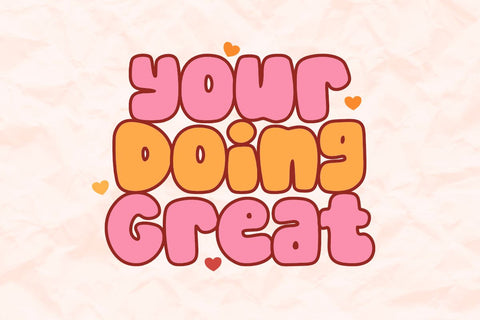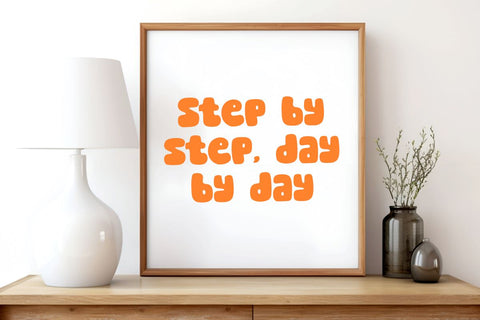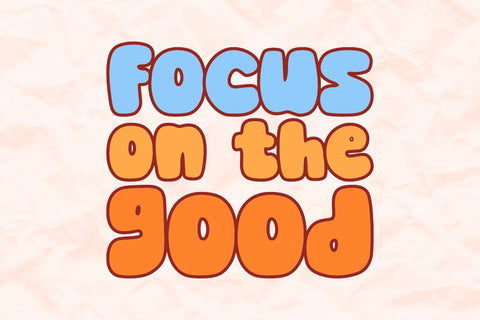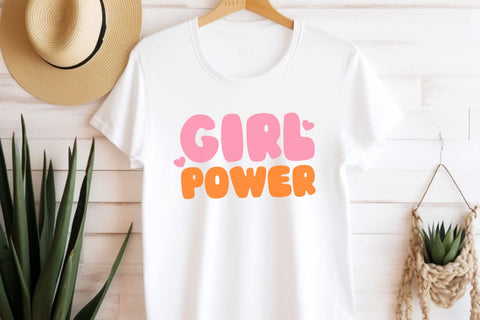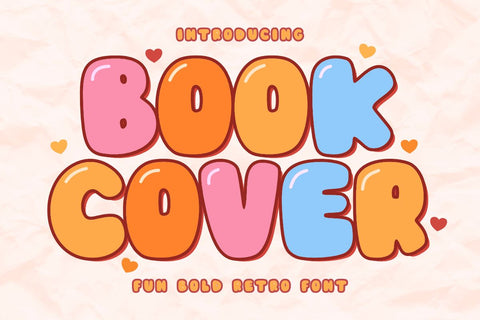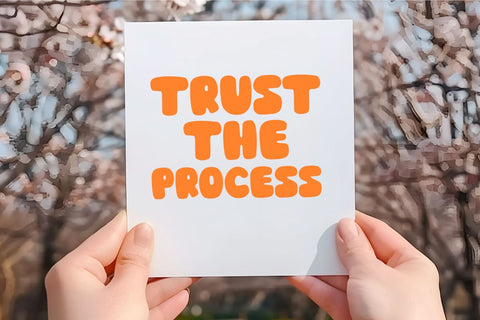
Book Cover - Fun Bold Retro Font
Book Cover is a bold and fun kids book cover display font. This font is inspired by the typography on kids book cover designs. This font is also very suitable for kids book covers. This font is also suitable for creative needs such as t-shirts, apparel, DIY, stickers, wall art, tote bags, tumblers, quotes, sublimation, knitting, logos, greeting cards and other creative ideas. Apart from that, this font is also suitable for marketing media such as advertising and branding.